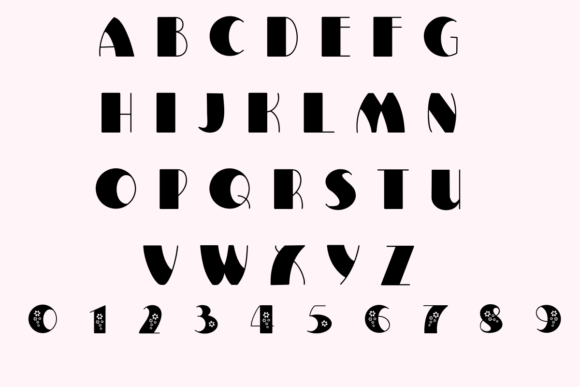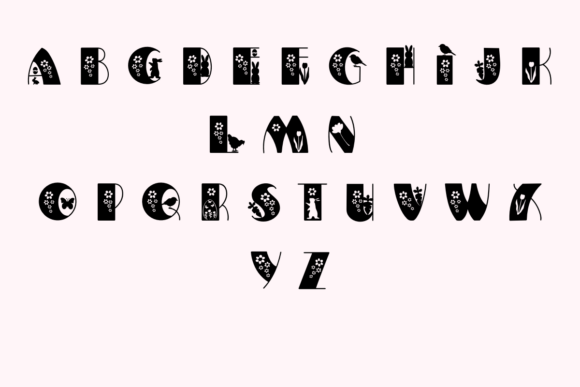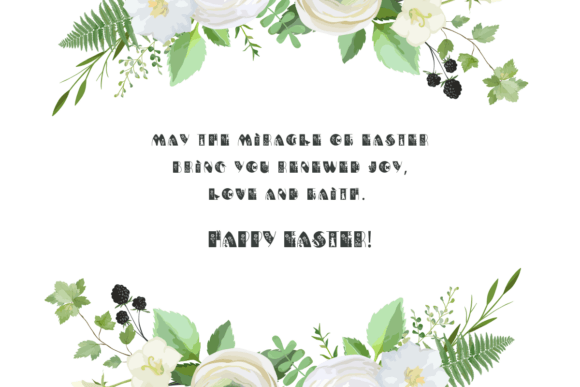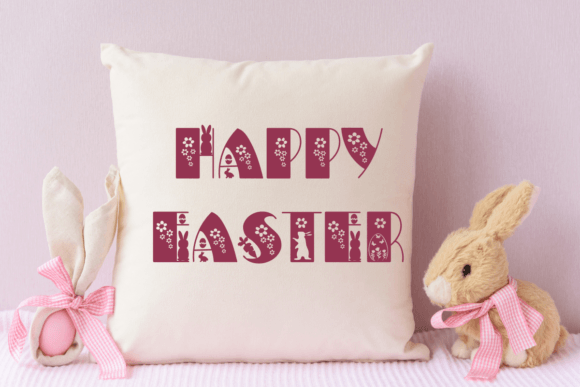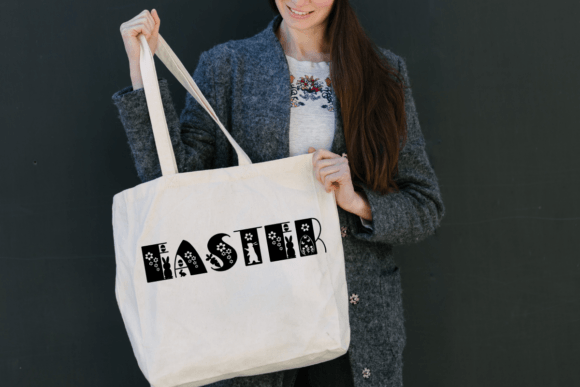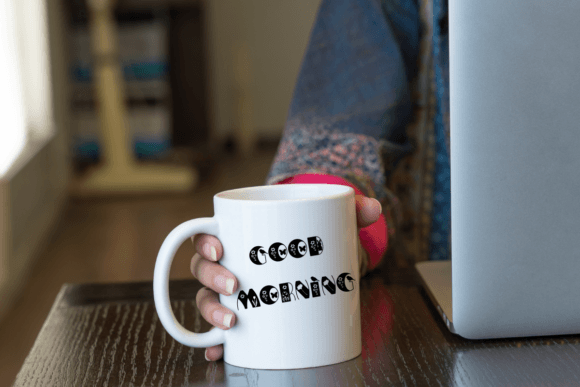
Easter Font: Celebrate the Joy of Spring with Whimsical Decorations
As the snow melts and flowers bloom, Easter brings a refreshing wave of joy and renewal. What better way to capture the essence of this festive season than with a delightful Easter font? Introducing Easter Decorative Font, a charming typeface adorned with bunnies, eggs, flowers, and other festive elements. This whimsical font is perfect for adding a cheerful, seasonal vibe to your designs, making it ideal for Easter cards, seasonal decor, party invitations, and creative DIY projects.
The Charm of Easter Decorative Font
Easter Decorative Font is a one-of-a-kind typeface that embodies the spirit of Easter. Its playful design features an assortment of Easter-themed elements, including cute bunnies, colorful eggs, blooming flowers, and other festive decorations. The font’s whimsical charm makes it perfect for creating eye-catching designs that are sure to delight both kids and adults.
Perfect for Easter Cards and Seasonal Decor
Easter cards are a thoughtful way to connect with loved ones during the holiday season. With Easter Decorative Font, you can create stunning card designs that showcase your creativity. The font’s playful and colorful design makes it perfect for adding a personal touch to your Easter cards. Additionally, you can use this font to create festive seasonal decor, such as banners, garlands, and other decorative elements that will add a pop of color and joy to your home.
Elevate Your Party Invitations with Easter Decorative Font
Are you planning an Easter-themed party? Easter Decorative Font is the perfect choice for creating eye-catching party invitations that will set the tone for a fun-filled celebration. The font’s whimsical design will surely delight your guests and build excitement for the big day. You can use this font to create custom invitations, party banners, and other decorative elements that will make your party stand out.
Unleash Your Creativity with DIY Projects
Easter Decorative Font is not just limited to digital designs. You can also use this font to create beautiful DIY projects, such as handmade cards, gift tags, and other paper crafts. The font’s playful design makes it perfect for adding a personal touch to your DIY projects, making them extra special and meaningful.
Key Features of Easter Decorative Font
- Whimsical design featuring bunnies, eggs, flowers, and other festive elements
- Perfect for Easter cards, seasonal decor, party invitations, and DIY projects
- Playful and colorful design that adds a cheerful, seasonal vibe to your designs
Tips and Inspiration for Using Easter Decorative Font
To get the most out of Easter Decorative Font, here are some tips and inspiration to keep in mind:
- Experiment with different font sizes and colors to create visual interest
- Combine Easter Decorative Font with other fonts for a unique and creative look
- Use the font’s festive elements to create custom illustrations and graphics
- Don’t be afraid to add your own personal touch and style to your designs
Easter Decorative Font is a delightful and whimsical typeface that is perfect for adding a cheerful, seasonal vibe to your designs. With its playful design featuring bunnies, eggs, flowers, and other festive elements, this font is sure to delight both kids and adults. Whether you’re creating Easter cards, seasonal decor, party invitations, or DIY projects, Easter Decorative Font is the perfect choice for designers and crafters looking to add a touch of Easter magic to their creations.